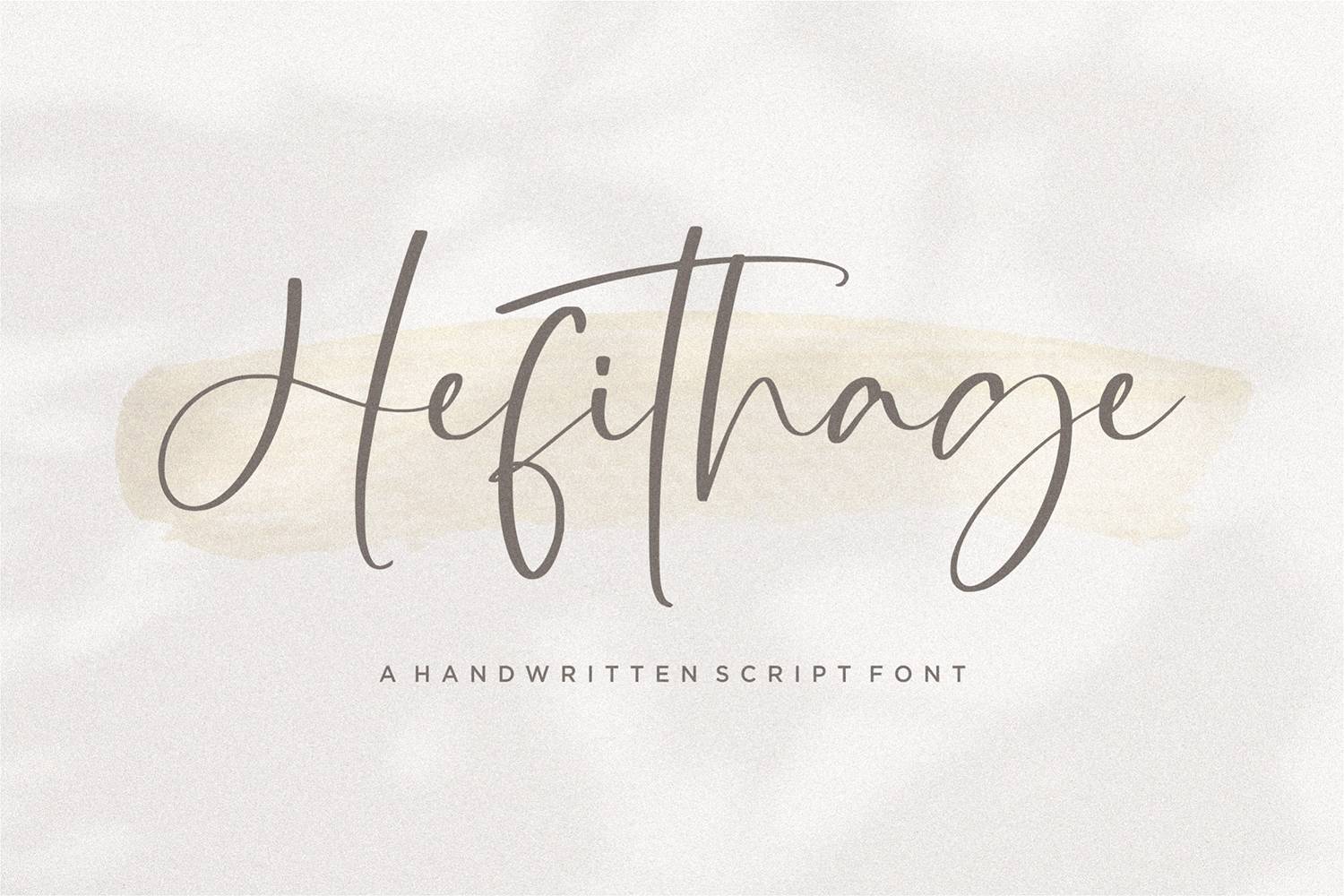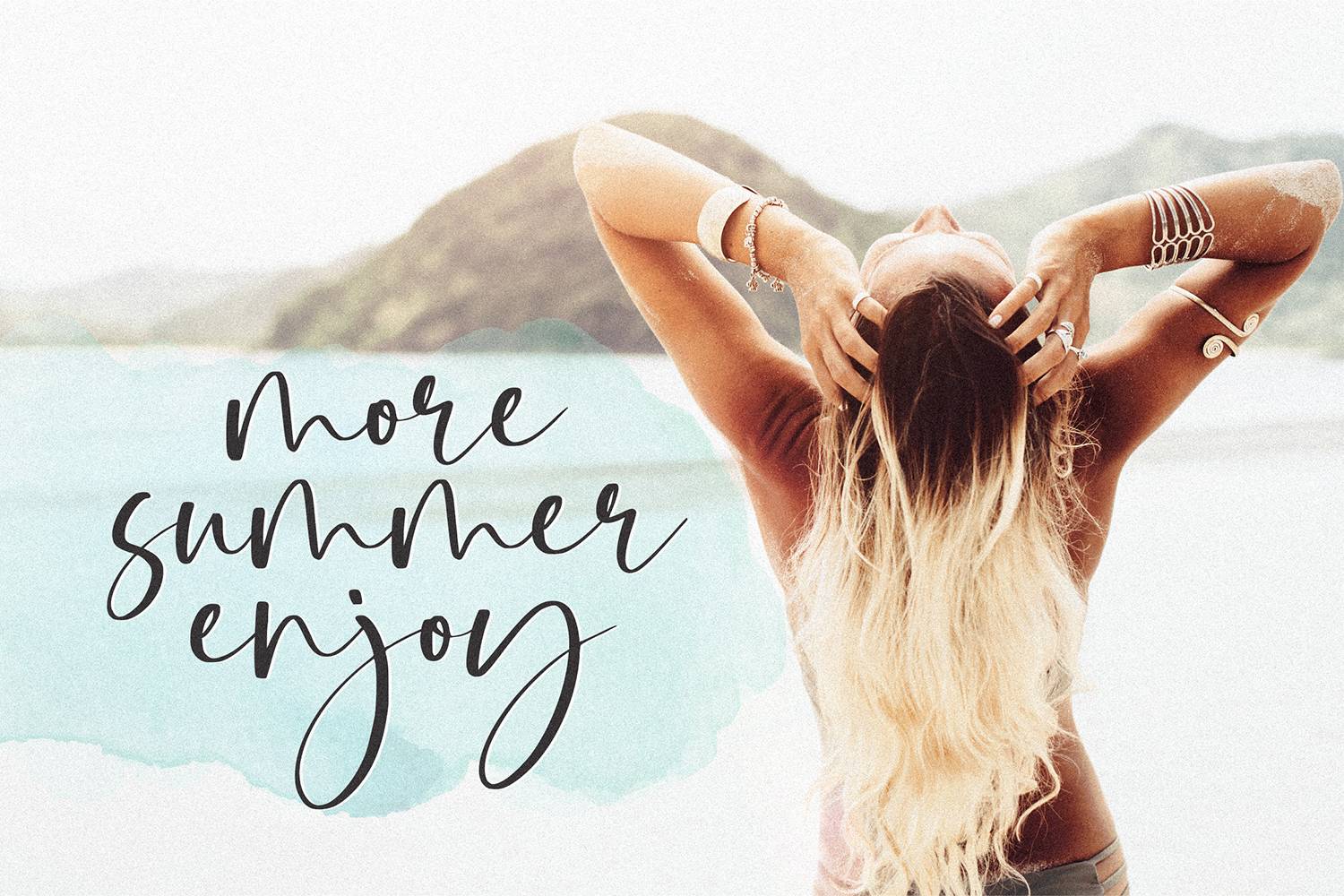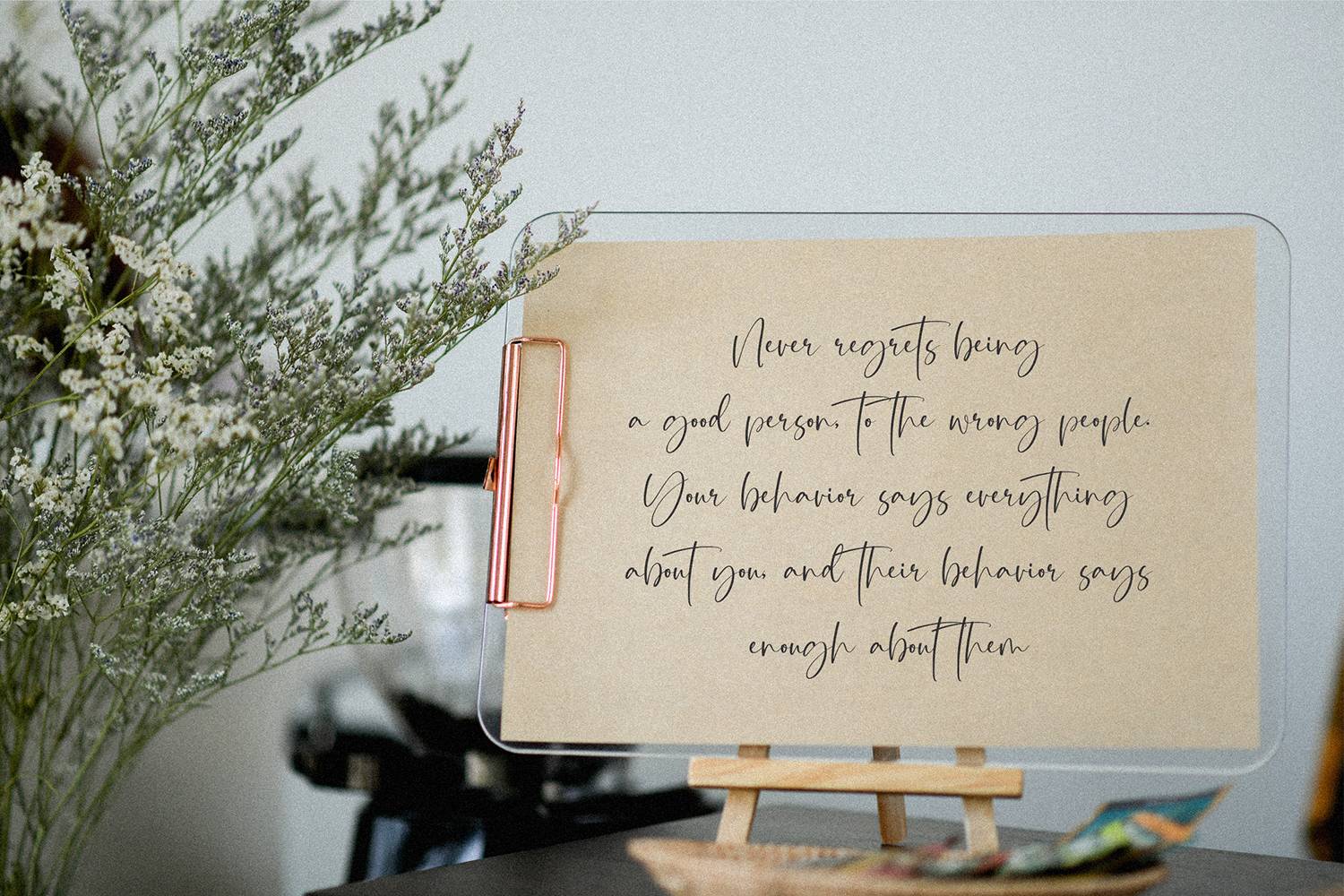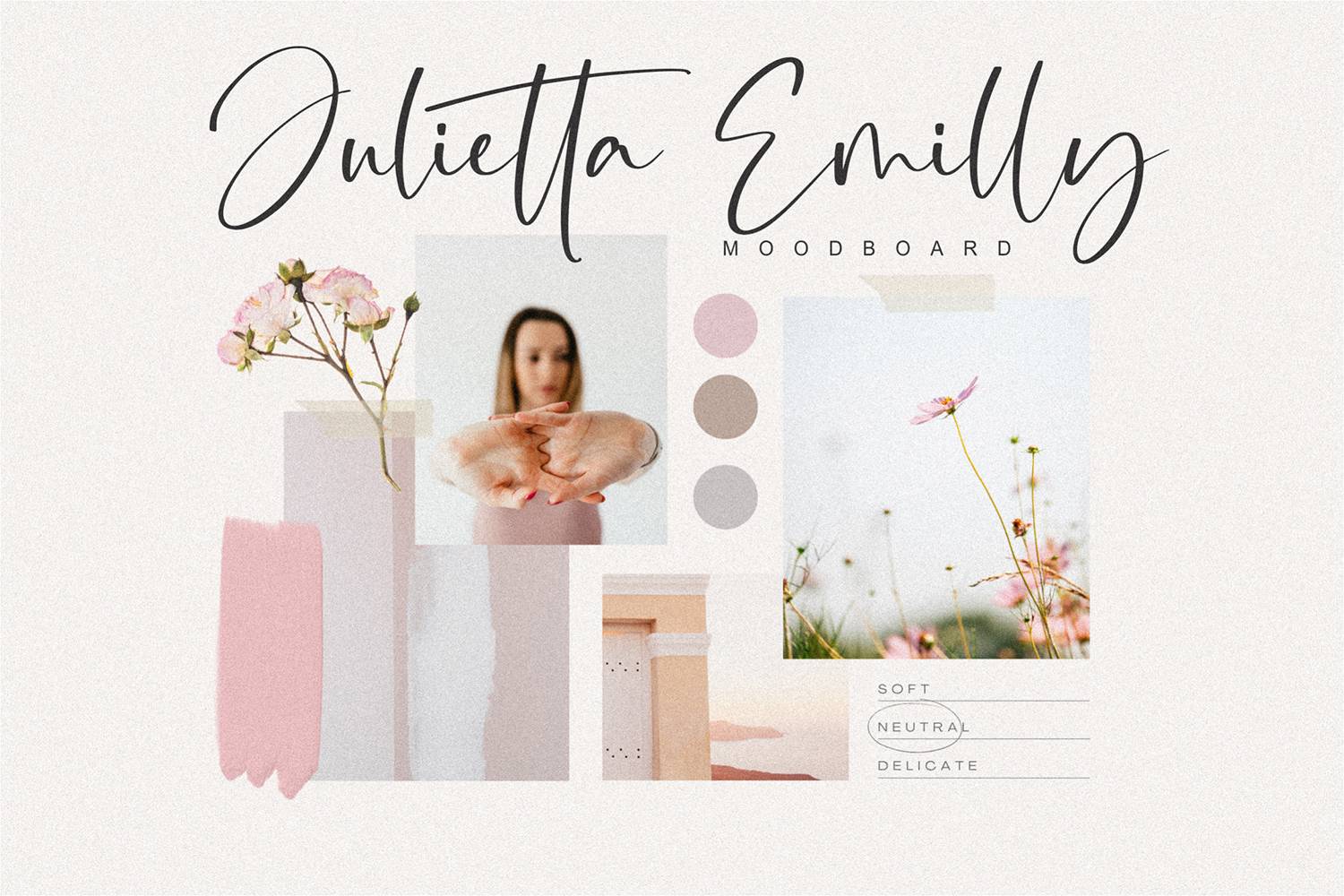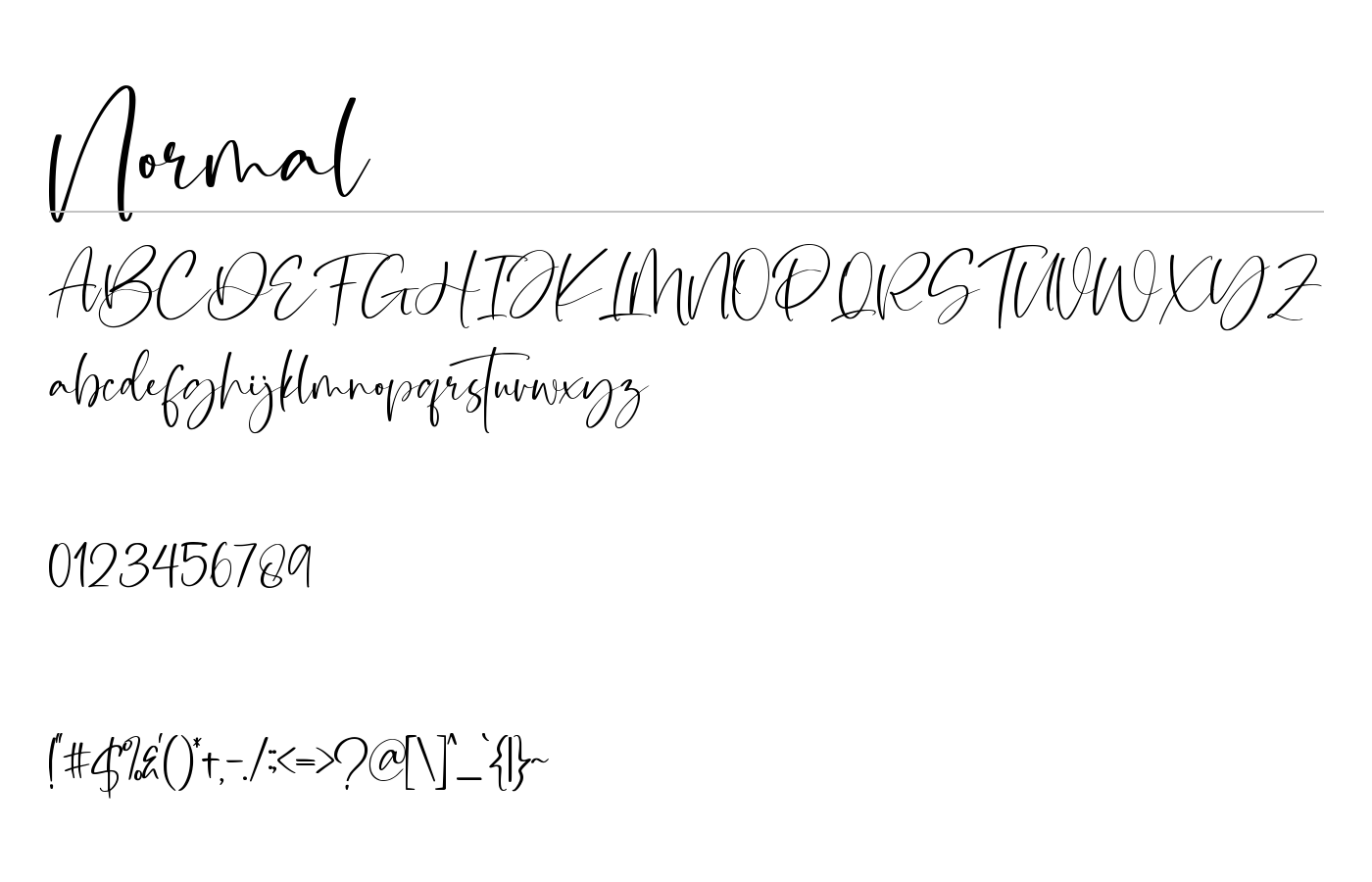
Hefithage is a delicate, handwritten script font with tall, slender letterforms and fluid, graceful strokes that evoke an elegant and personal touch. Its light weight and airy spacing make it ideal for stylish branding, wedding invitations, and sophisticated editorial designs where a refined, feminine aesthetic is desired. This font shines best in large sizes for headlines and decorative accents, adding a modern yet romantic flair to any project.
Hefithage Font
About Hefithage Font
| Font family | Hefithage Font |